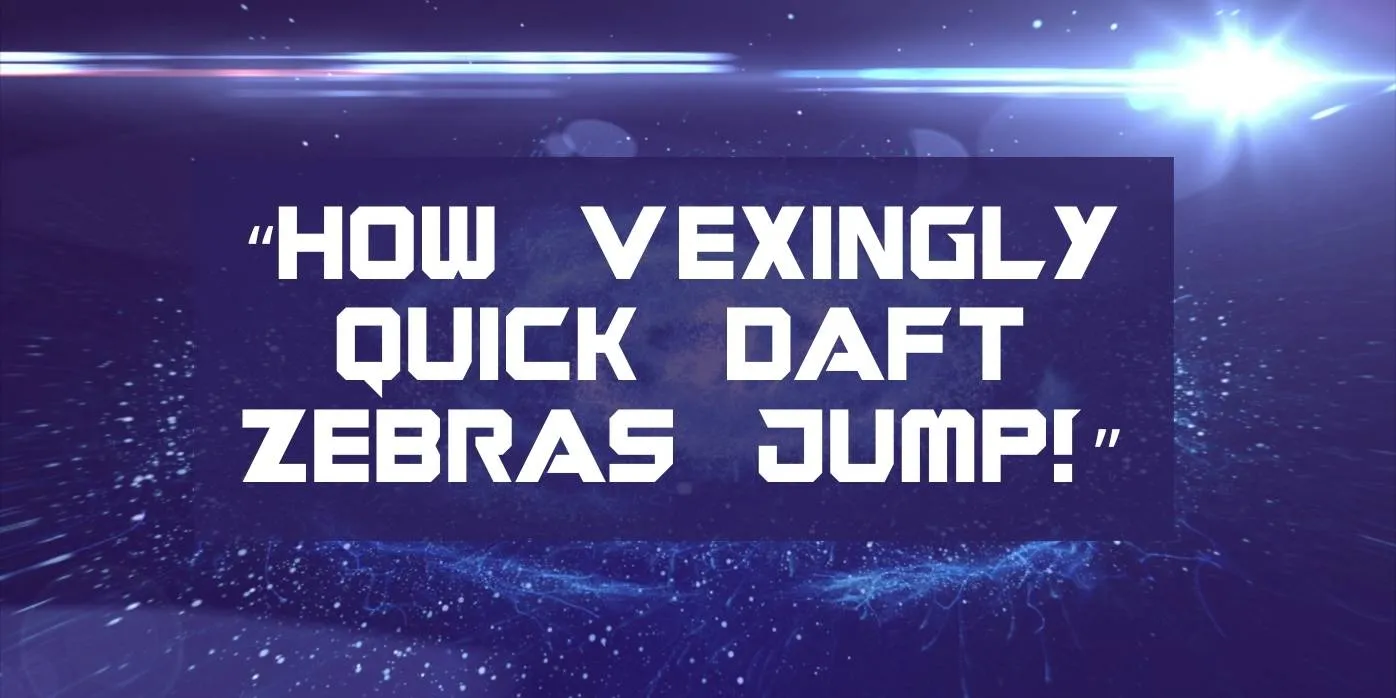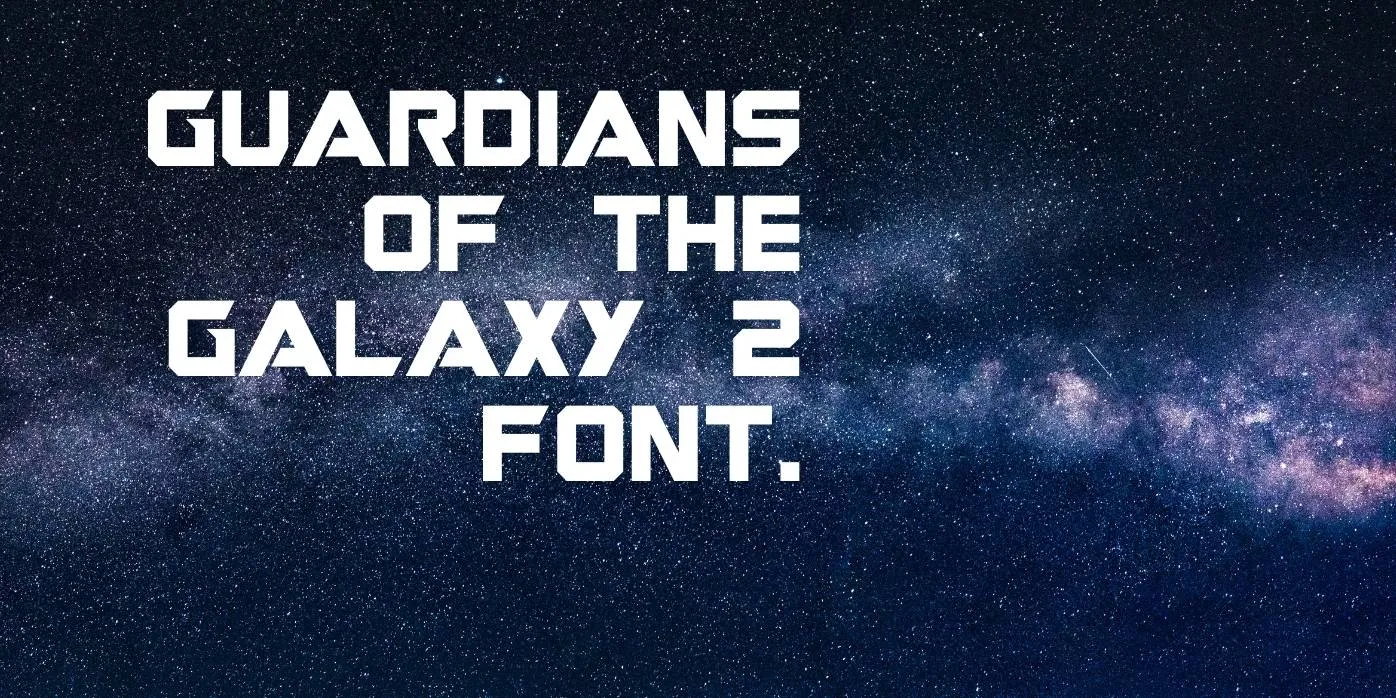
Guardians of The Galaxy 2 Font
Guardians Of The Galaxy 2 Font was designed by Geronimo Font Studios. This font belongs to the Display typeface. This attractive Font is perfect for posters, headlines, and other large text settings. This stylish font is also very legible in small sizes.
This amazing typeface comes in various styles. This cool font is perfect for logos, headlines, and other creative designs. This Typeface is made more attractive when use by making pairing it with Ethnocentric Font. This typeface is very famous in designing markets because of its attractiveness, legibility, and stylishness.
This typeface is best for Canva. This typeface is suitable for many popular brands for its logos and designs. If you want to get progress with this typeface in your design project, this is the best choice for you. This classy font is a very attractive and stylish font that will make your text look more beautiful and professional.